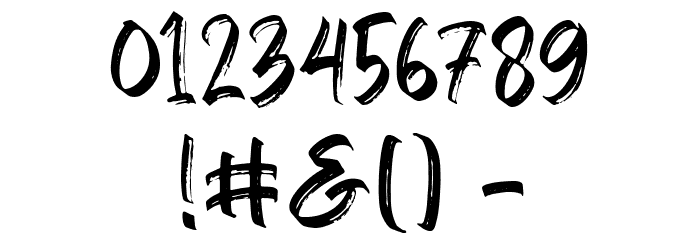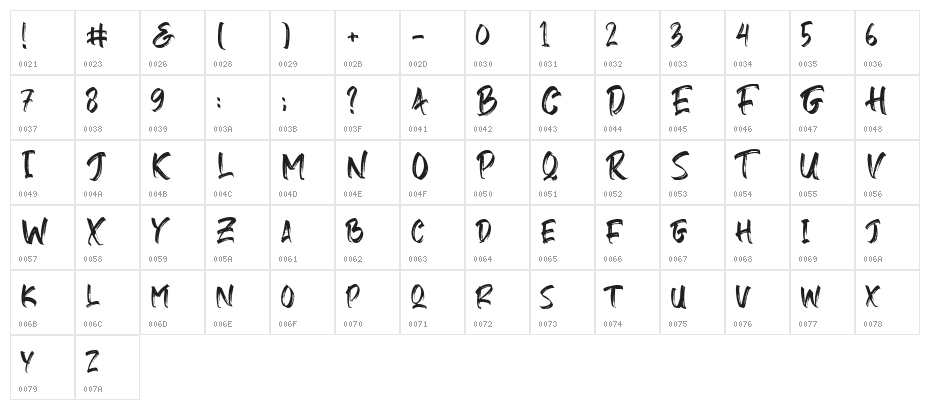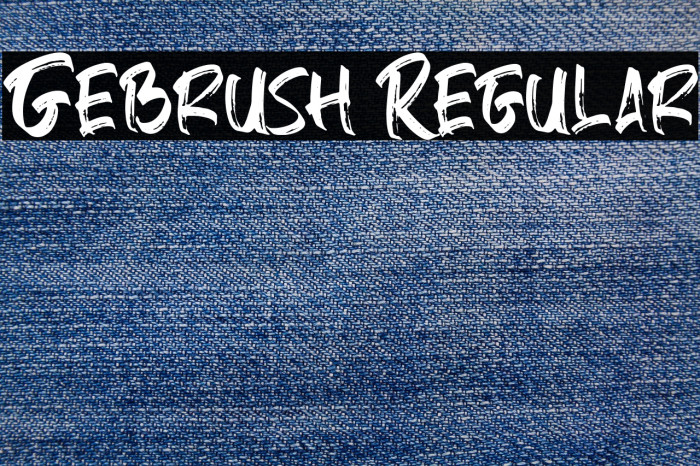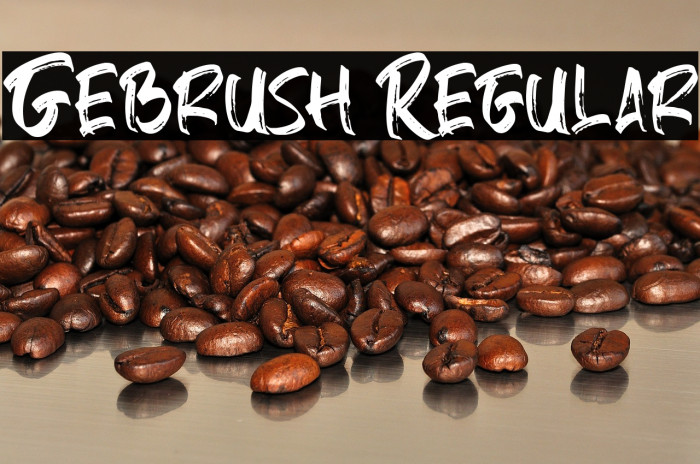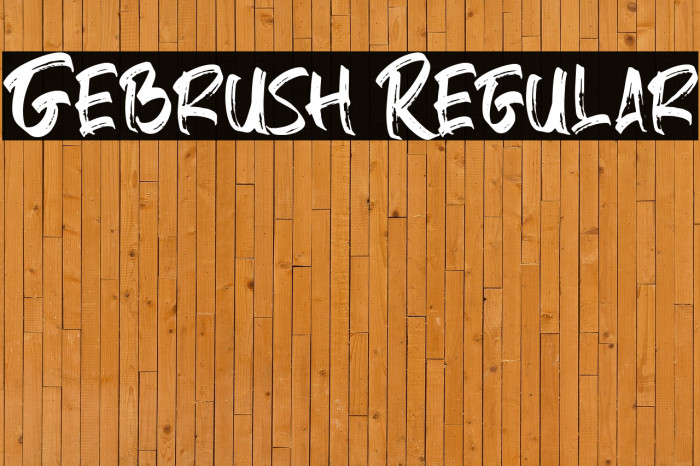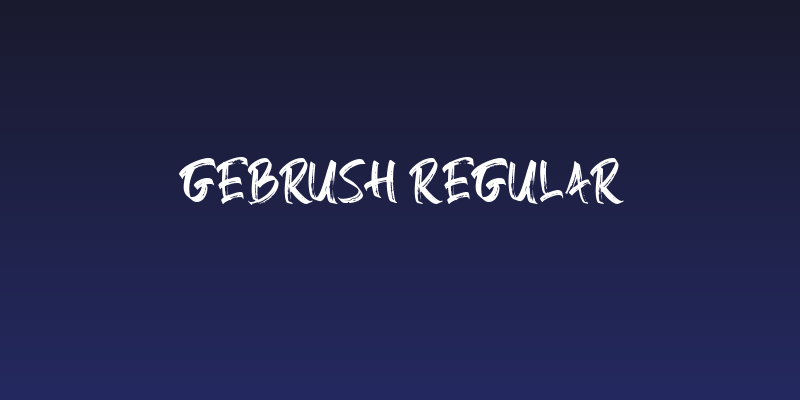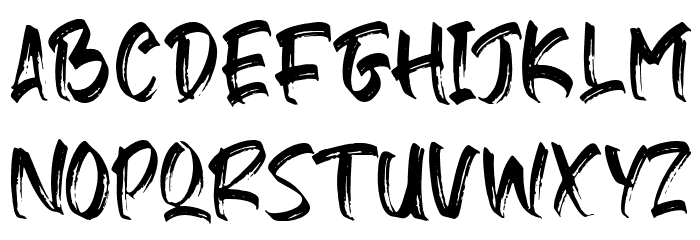
Gebrush Regular Font
Gebrush Regular Description
This font features a bold, expressive brush style that exudes energy and creativity. The strokes are dynamic and varied, with a hand-painted appearance that adds a personal touch to any design. Each character is unique, with irregular edges and a sense of movement, making it ideal for projects that require a lively and artistic flair. The uppercase and lowercase letters maintain a consistent style, while the numerals and special characters complement the overall aesthetic. This font is perfect for capturing attention and conveying a sense of spontaneity and artistic expression.
| Proposed Projects | Ideal for posters, album covers, branding, and creative projects that require an artistic touch. |